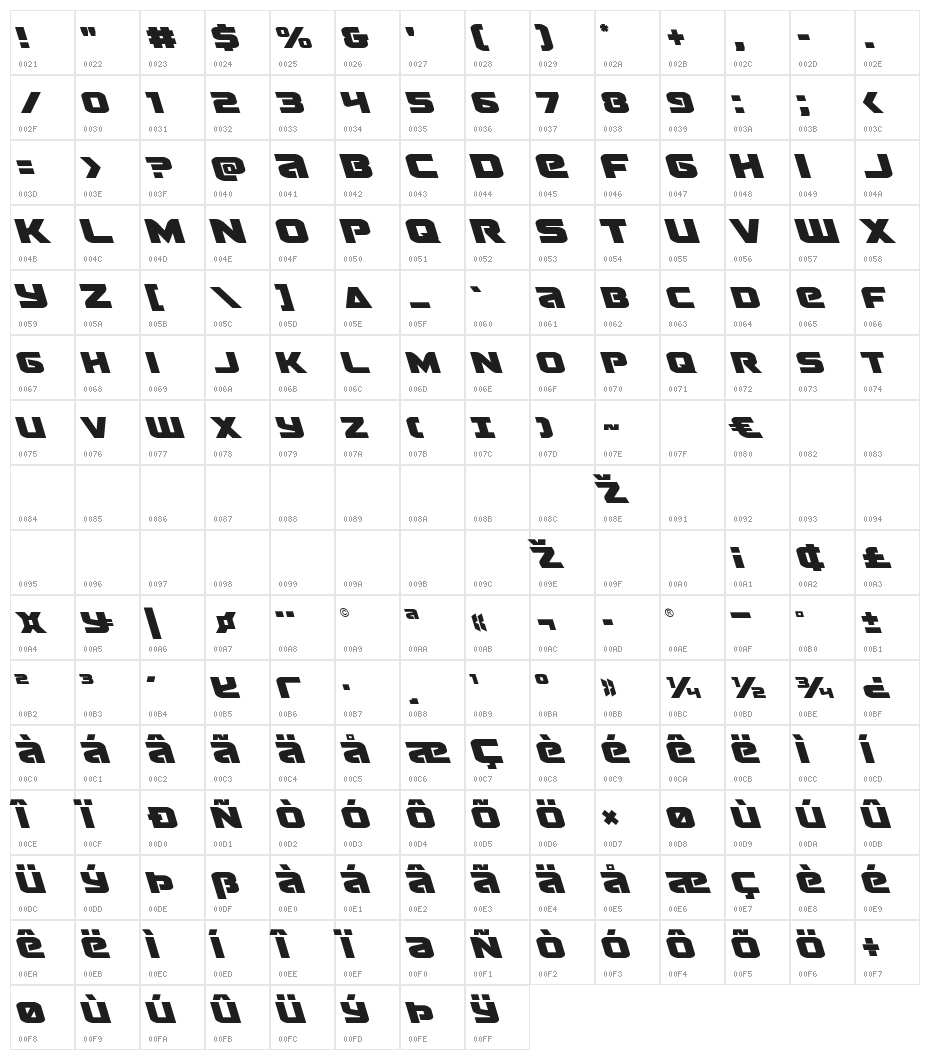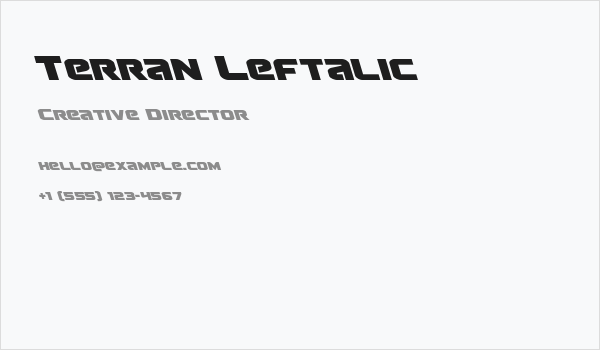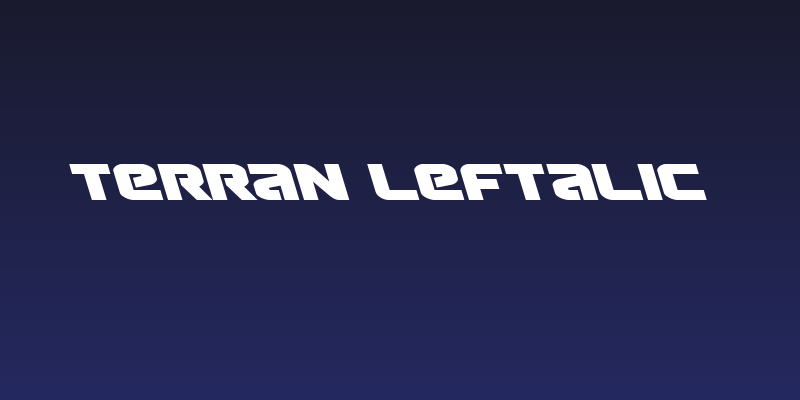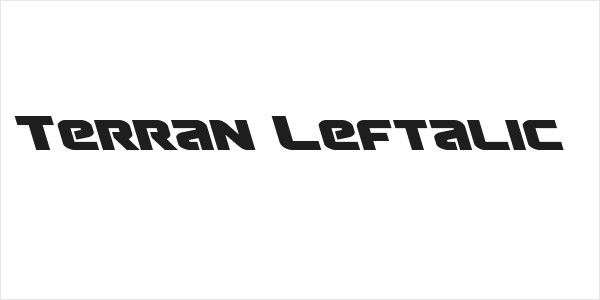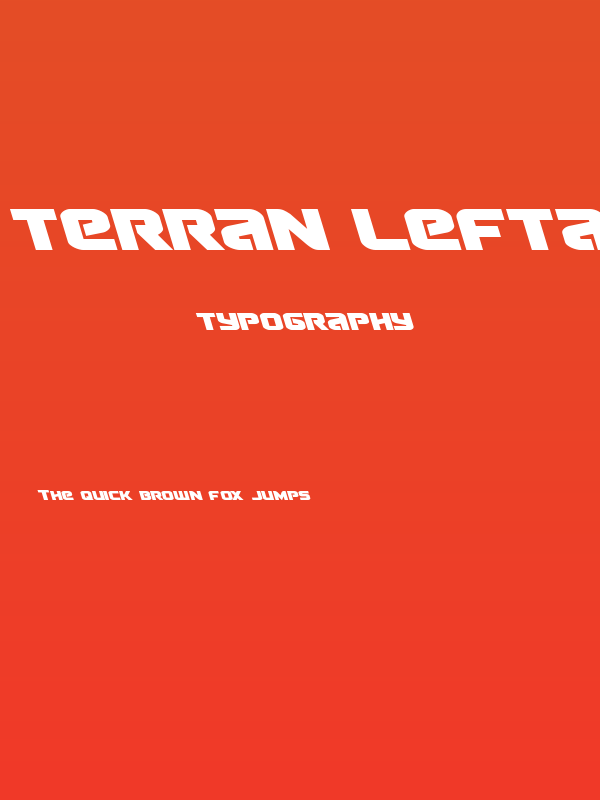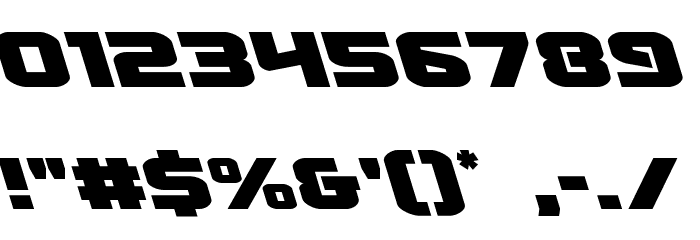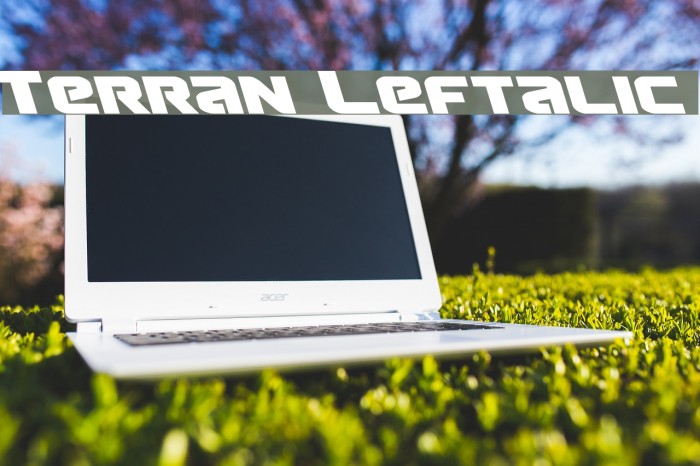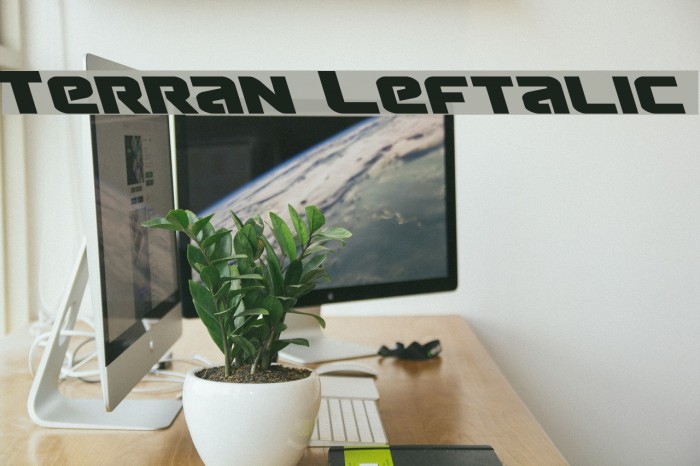
Terran Leftalic Font
Terran Leftalic Description
This font features a bold and dynamic style with a futuristic and angular design. The characters are slanted to the left, giving a sense of motion and speed. The strokes are thick and consistent, providing a strong visual impact. The geometric shapes and sharp edges contribute to its modern and edgy appearance. The font maintains a uniform width across all characters, ensuring a cohesive look. It is well-suited for projects that require a bold statement or a contemporary aesthetic.
| Proposed Projects | Ideal for sci-fi themed designs, video game titles, tech branding, and dynamic posters. |